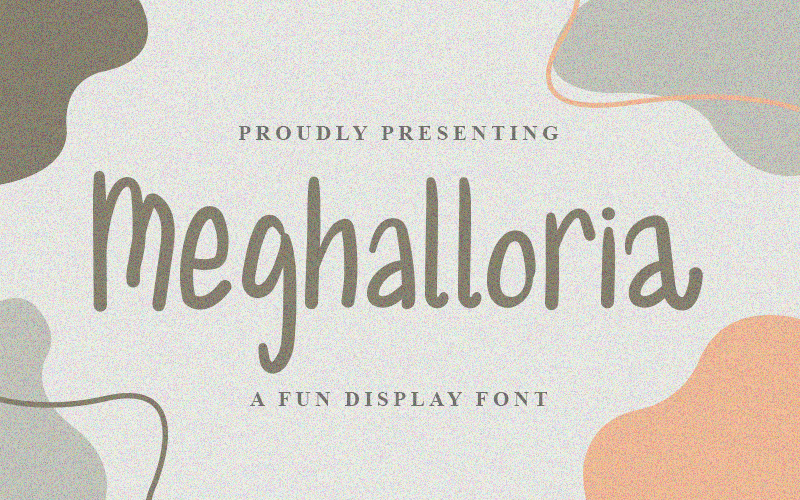
Font name: | Meghalloria |
Author: | Denny Sutanto |
Meghalloria Font is a Fun Handwritten Display Font that perfect for all of your craft projects! This font will elevate a wide range of design projects to the highest level, be it branding, headings, wedding designs, signatures, logos, labels, and much more! What�s Included : � OTF & TTF � Works on PC & Mac � Easy to use ( Installations ) � Easy Convert to webfont � Compabilty Windows, Apple, Linux, Cricut, Silhouette and Other cutting machines Note of the author: NOTE: This Demo is for PERSONAL USE ONLY! But any donation are very appreciated. PayPal Account for Donations: https://lnkd.in/fPg-VuA Link for Donations via PayPal: paypal.me/dennysutanto93 link to purchase full version and commercial license: - Creative Fabrica: https://www.creativefabrica.com/product/meghalloria/ref/235725/ Please visit our store for more great fonts: - https://www.creativefabrica.com/designer/densudesign/ and follow my Instagram for update: https://www.instagram.com/densudesign/ Thank You #MeghalloriaFont #Meghalloria #Font #simple #playful #joy #handwriting #soft #cheerful #font #fontdesign #logo #businesscard #card #design #graphic #written #handwritten #simple #family #cheers #cheerful #font #fontdesign #logo #businesscard #card #design #graphic #written #handwritten #simple #family #cheers #cheerful |